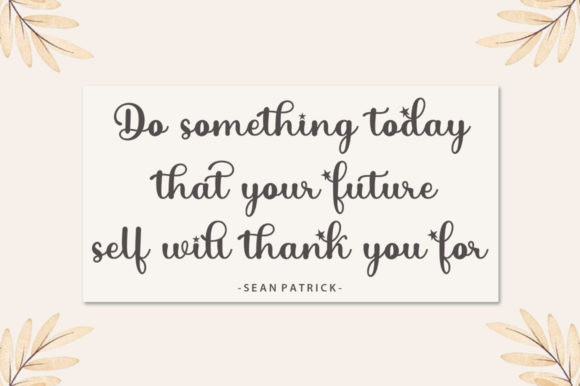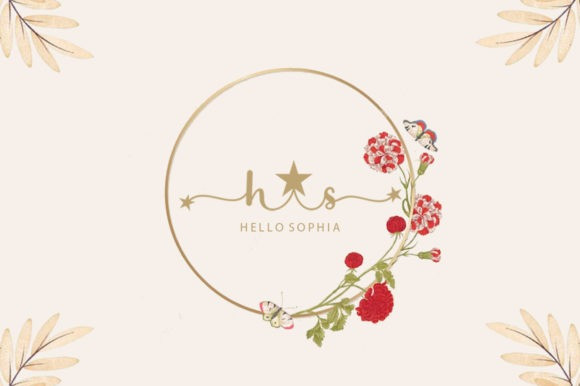
Juslia Sophia Font
Juslia Sophia Script Font is a romantic and sweet calligraphy typeface with characters that dance along the baseline. It has a casual, yet elegant touch. This font is PUA encoded which means you can access all of the glyphs and swashes with ease!